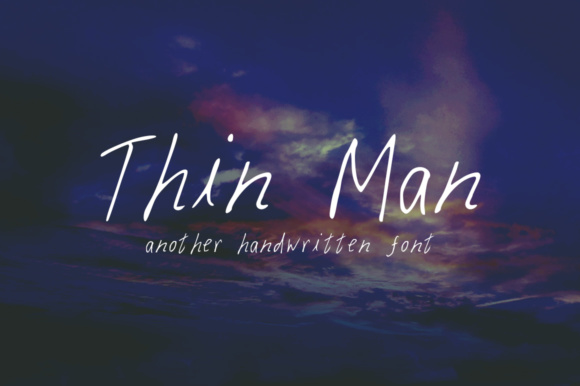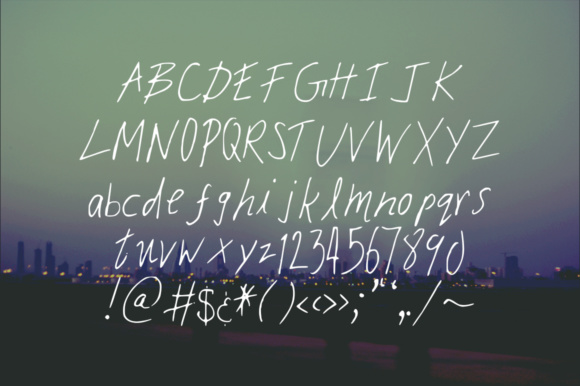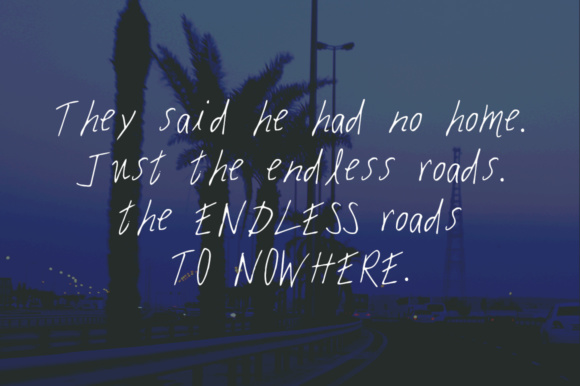
HomeScript FontsThin Man Font Script Fonts Thin Man Font FacebookXPinterestWhatsApp Thin Man Font Poster 2 Thin Man Font Poster 3 About Thin Man Font Thin Man is a little thin, a little rugged and a little crooked typeface. DOWNLOAD NOW People also explored Ariella Ritschild Font Roller Skate Font Moralstory Font Rustelord Signature Font Vincent Handmade Font Freaky Font Aquarius Font Comics Pop Art Font Angela Beauty Font 408 0 TagsThin Man Font Previous articleNew Greand FontNext articleZenith Script Font LEAVE A REPLY Cancel reply Comment: Please enter your comment! Name:* Please enter your name here Email:* You have entered an incorrect email address! Please enter your email address here Website: Save my name, email, and website in this browser for the next time I comment. Personal Use Free Masha Song Personal Use Free Read more about this font Makcex Personal Use Free Read more about this font Geuli Personal Use Free Read more about this font Strasua Personal Use Free Read more about this font BLOG Free Fonts Risk: Why Free Fonts Can Be Dangerous for Designers Free Fonts Risk: Why Free Fonts Can Be Dangerous for Designers Using free fonts is a common practice in web and graphic design. However, the... 5 Fonts That Will Dominate Design Trends in 2026 Where to Buy American Fonts Online in 2024 Using Fonts in Digital Marketing: Tips to Strengthen Your Brand Identity